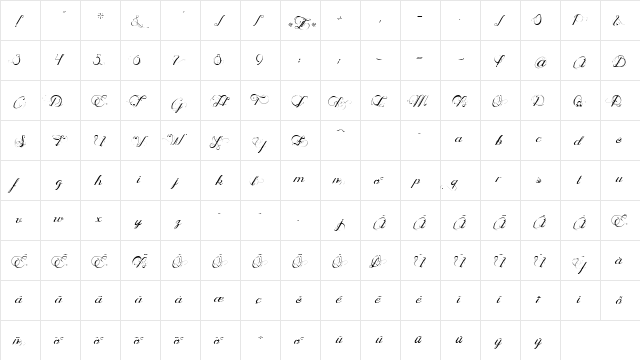
Oph鬩a Script Italic
| Foundry | M.K.V |
Design Context for Oph鬩a Script Typeface
Oph鬩a Script flows with the natural rhythm of handwritten lettering, making it ideal for designs that call for warmth and personal expression.
Font Pairing: Combine Oph鬩a Script with a simple geometric sans for maximum contrast — the tension between flowing curves and clean structure is a classic typographic pairing.
Pro Tip: Pair Oph鬩a Script with a clean sans-serif for supporting text. The contrast between fluid script and geometric structure creates an elegant typographic hierarchy.